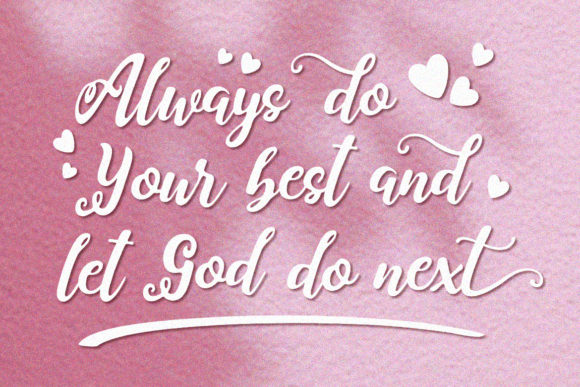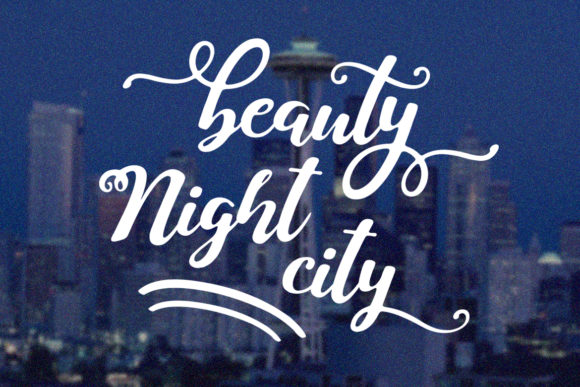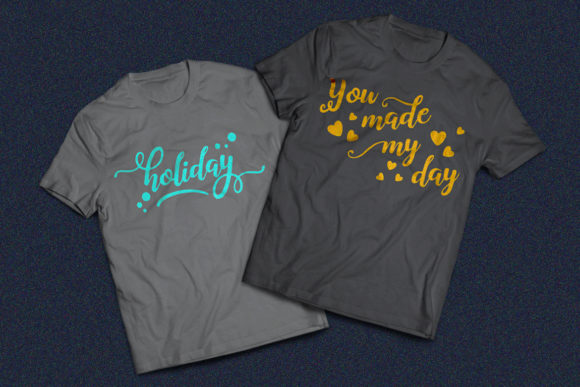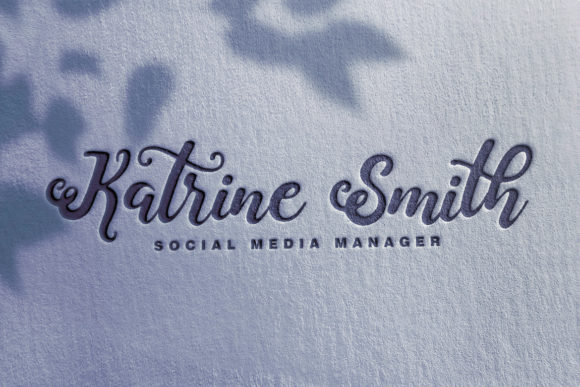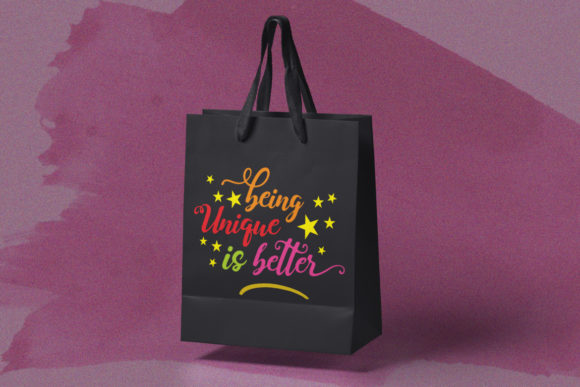
Introduction to Emily Diana Font
As a designer, have you ever found yourself stuck in a creative rut, searching for the perfect font to elevate your latest project? You’re not alone. We’ve all been there, pouring over design resources, scouring the web for that elusive perfect fit. But what if I told you that I’ve discovered a hidden gem that will revolutionize your design process? Meet the enchanting Emily Diana Font.
This elegant handwritten font is a game-changer, adding a touch of whimsy and sophistication to any design project. With its high-quality design and transparent background, it’s the perfect addition to your creative toolkit. And the best part? It’s available for a free download, making it an accessible resource for designers of all levels.
Whether you’re working on a branding project, a wedding invitation, or a social media campaign, the Emily Diana Font is sure to bring a touch of magic to your design. So why settle for a generic font when you can have a unique and stylish alternative? Get ready to fall in love with this charming font and take your design projects to the next level.
Key Features of Emily Diana Font
- High-quality design resource ideal for creative projects, including logos, branding, and packaging.
- Transparent background, allowing for easy customization and versatility in design applications.
- Unique, elegant script font with a touch of sophistication, making it perfect for high-end branding and creative projects.
Honest Review: Emily Diana Font
As a designer, I’ve had the chance to explore a variety of design resources, and I must say, the Emily Diana Font is one that stands out from the rest. This beautiful, elegant script font is perfect for creative projects that require a touch of sophistication and whimsy.
What works well: ✨ The font’s unique, flowing script style is perfect for adding a personal touch to wedding invitations, branding materials, and other creative projects. The high quality of the font is evident in its crisp, clear lines and subtle flourishes. I also appreciate that the font is available for free download, making it an excellent resource for designers on a budget.
What doesn’t work so well: ⚠️ One potential limitation of the Emily Diana Font is that it may not be suitable for projects that require a bold, attention-grabbing font. Additionally, the font’s transparent background may require some extra work to ensure it displays correctly on different backgrounds.
Overall, I’m thoroughly impressed with the Emily Diana Font. Its unique style and high quality make it a valuable addition to any designer’s toolkit. Whether you’re working on a wedding invitation, a branding project, or anything in between, this font is sure to add a touch of elegance and sophistication to your design.
- Unique, flowing script style
- High quality, crisp lines and subtle flourishes
Tips for Getting the Most Out of the Emily Diana Font
Use the font in combination with a transparent background to create a clean and minimalist design. Experiment with different font sizes and styles to add visual interest to your design. Use the font in a creative project, such as a logo or branding materials, to add a touch of elegance and sophistication.
Q: Is the Emily Diana Font suitable for print and digital designs?
Yes, the Emily Diana Font is suitable for both print and digital designs. Its high-quality design and transparent background make it perfect for a wide range of creative projects, from business cards and invitations to website headers and social media graphics. The font is also scalable, so it will look great in various sizes and resolutions.